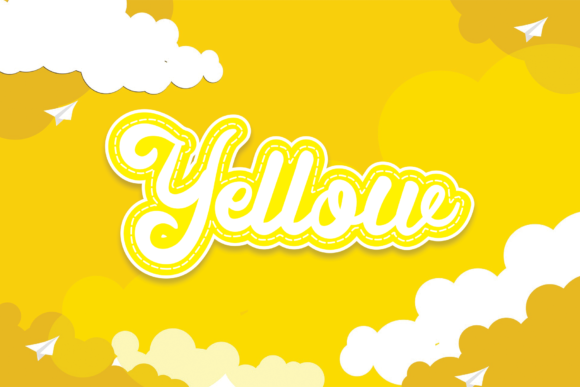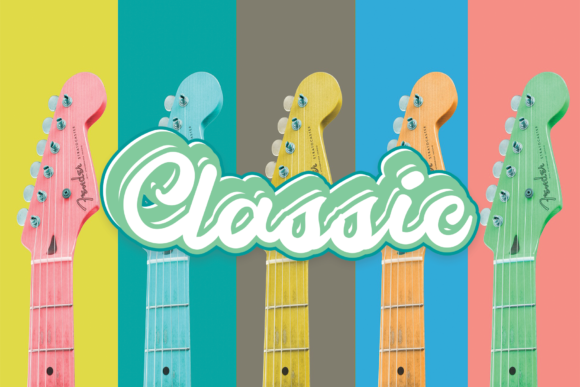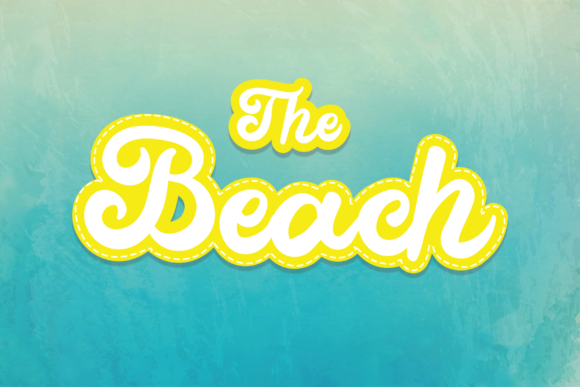
Introduction to My Wedding Day Font
As you sit in your cozy home office, surrounded by half-finished projects and scattered design materials, you know that moment of creative clarity is just around the corner. It’s the spark that ignites your imagination, and suddenly, a beautiful idea begins to take shape. For many designers, that moment is often accompanied by the perfect font, and today, we’re excited to introduce you to one that will make your heart skip a beat – the enchanting My Wedding Day Font.
This stunning, retro-style handwritten font is a game-changer for any creative project. With its unique, whimsical feel and high-quality design, it’s no wonder why designers are falling in love with My Wedding Day Font. Whether you’re working on a wedding invitation, a blog post, or even a free download, this versatile font is sure to elevate your design to new heights.
Key Features of My Wedding Day Font
- High-quality, elegant script font perfect for a creative project like wedding invitations, decorations, or other design resources.
- Unique, hand-drawn design elements create a romantic and whimsical feel, ideal for a wedding-themed project.
Honest Review: My Wedding Day Font
I recently stumbled upon the My Wedding Day Font, and I must say it’s been a delightful addition to my design resources. As a designer, I’m always on the lookout for unique and high-quality fonts to elevate my creative projects. This font definitely delivers.
What works well is the beautiful, cursive script style that makes it perfect for wedding invitations, save-the-dates, and other special occasion designs. The transparent background allows for seamless integration with any background image or color, making it incredibly versatile. The free download was a nice surprise, too!
- ✨ Beautiful cursive script style
However, I did encounter a few limitations. The font is only available in a few weights, which may not be ideal for designers who like to have more flexibility in their typography. Additionally, the font is not suitable for large-scale text, as it can become difficult to read.
Overall, I’m thoroughly impressed with the My Wedding Day Font. While it may have some limitations, its unique style and high-quality design make it a valuable addition to any designer’s toolkit.
Tips for Getting the Most Out of My Wedding Day Font
Use My Wedding Day Font as a design resource for your creative project, such as wedding invitations, save-the-dates, or other wedding stationery. Experiment with different font combinations and styles to create a unique look. Consider using My Wedding Day Font in conjunction with other design elements, such as graphics and images, to add visual interest to your design.
My Wedding Day Font is a versatile design resource that can be used for a variety of purposes, including wedding invitations, save-the-dates, wedding stationery, and other creative projects. It’s also a great option for free download and use in personal projects.